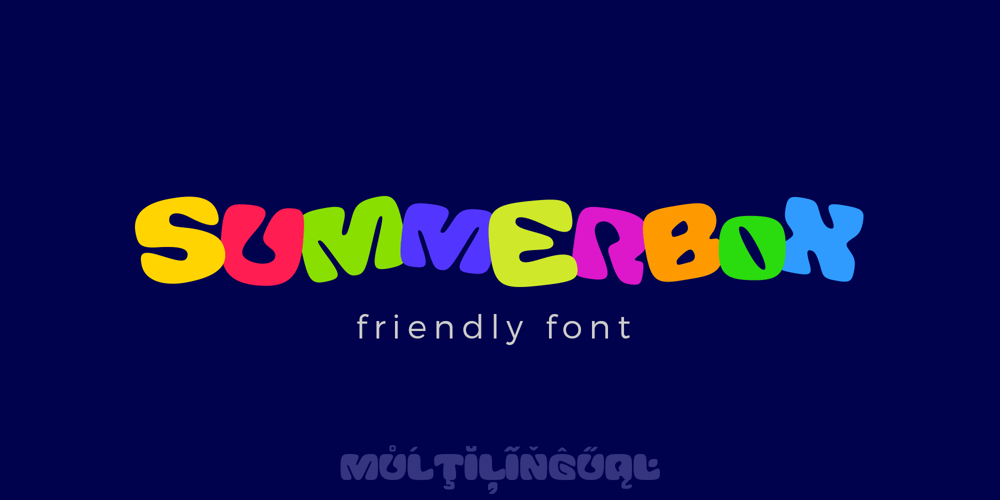
Summer Box Font Family was designed by Dmytro Poliakh and published by Sentavio. Summer Box contains 1 styles and family package options. SummerBox is a summer friendly funny bold display font, fresh & modern style. SummerBox Font suitable for logo, branding, greeting card, poster and any design that you create.